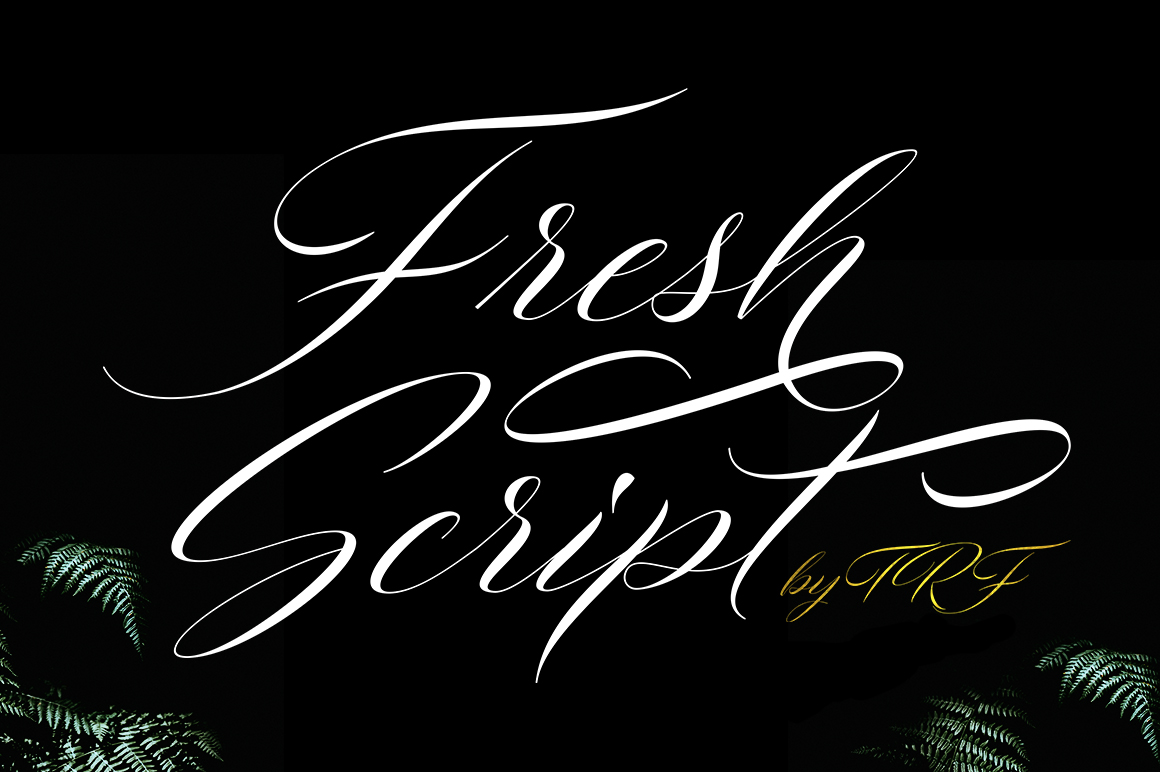
Fresh Script: A Handwritten Font for Creative Expression
For designers, writers, and creators who value authenticity in their work, Fresh Script offers a unique solution. This thin, free-flowing handwritten script brings a natural, artistic touch to any project. With over 400 unique glyphs and 210 alternate characters—including many with swashes—Fresh Script is more than just a font; it's a tool that can elevate the visual appeal of your content.
Elevate Your Design with a Natural Feel
In an era where digital design often feels sterile, Fresh Script provides a refreshing alternative. Its fluid lines and organic curves mimic the look of real handwriting, making it ideal for projects that require a personal or creative touch. Whether you're designing a logo, creating social media content, or working on a marketing campaign, this font can help your message stand out in a crowd.
Consider using Fresh Script for invitations, greeting cards, or branding materials that aim to convey warmth and approachability. The presence of swash characters adds a decorative flair without overwhelming the reader, allowing your message to remain clear while still feeling visually engaging.
Perfect for Content Creators and Bloggers
Bloggers and content creators looking to enhance the readability and aesthetics of their posts will find Fresh Script to be a valuable asset. Its clean yet expressive style works well for headings, titles, and call-out boxes. When used sparingly, it can draw attention to key points without distracting from the main content.
Imagine using Fresh Script for blog post titles or section headers. It adds a subtle elegance that can make your writing feel more inviting and professional. For those who run lifestyle blogs, fashion sites, or creative portfolios, this font can help establish a consistent and appealing visual identity.
Use Cases for Bloggers and Writers
- Headlines and subheadings for articles
- Call-to-action buttons and links
- Quotes and testimonials
- Featured sections or highlights
These applications not only improve the overall look of your content but also help guide readers through your material more effectively.
Supporting Creativity in Graphic Design
Graphic designers who want to infuse their work with a sense of movement and emotion will appreciate the versatility of Fresh Script. Its thin strokes and flowing curves lend themselves well to a variety of design styles—from minimalist to ornate. The inclusion of alternate characters and swashes gives designers the flexibility to customize their typography to suit different moods and messages.
Whether you're designing a poster, brochure, or packaging, Fresh Script can add a layer of sophistication that sets your work apart. It’s particularly effective when paired with other fonts to create contrast and balance within a layout.
Why Entrepreneurs and Small Business Owners Should Consider It
Entrepreneurs and small business owners are always looking for ways to build brand recognition and connect with their audience. Fresh Script can play a role in that by helping to create a memorable and distinctive visual identity.
Using this font in logos, website headers, or promotional materials can help convey a sense of professionalism and creativity. It’s especially useful for businesses in industries like fashion, art, wellness, and lifestyle, where a personal and artistic touch can resonate strongly with customers.
Additionally, its availability as a free font makes it accessible for startups and small teams who may be working with limited budgets but still want to deliver high-quality design.
Enhancing Communication with Visual Appeal
Clear communication is essential in both personal and professional settings. Fresh Script helps bridge the gap between form and function by making text more engaging without compromising readability. Its elegant yet legible style ensures that even complex information remains easy to digest.
For educators and trainers, using Fresh Script in presentations or handouts can make learning materials more visually appealing and less intimidating. It can also be used in instructional videos or online courses to create a friendly and approachable atmosphere.
Who Can Benefit Most from Fresh Script?
Fresh Script is suitable for a wide range of users, but certain groups may find it particularly beneficial:
- Designers and illustrators: Looking for a versatile font that adds character to their work.
- Bloggers and content creators: Wanting to enhance the visual appeal of their online content.
- Small business owners: Seeking to build a unique brand identity with minimal cost.
- Freelancers and entrepreneurs: Needing a professional yet creative font for marketing materials.
- Educators and trainers: Aiming to make learning materials more engaging and visually stimulating.
Each of these groups can use Fresh Script in different ways to achieve specific goals, whether it's improving brand recognition, increasing engagement, or simply making content more enjoyable to read.
By understanding these considerations, you can ensure that Fresh Script is used in the right context and achieves the desired effect in your projects.